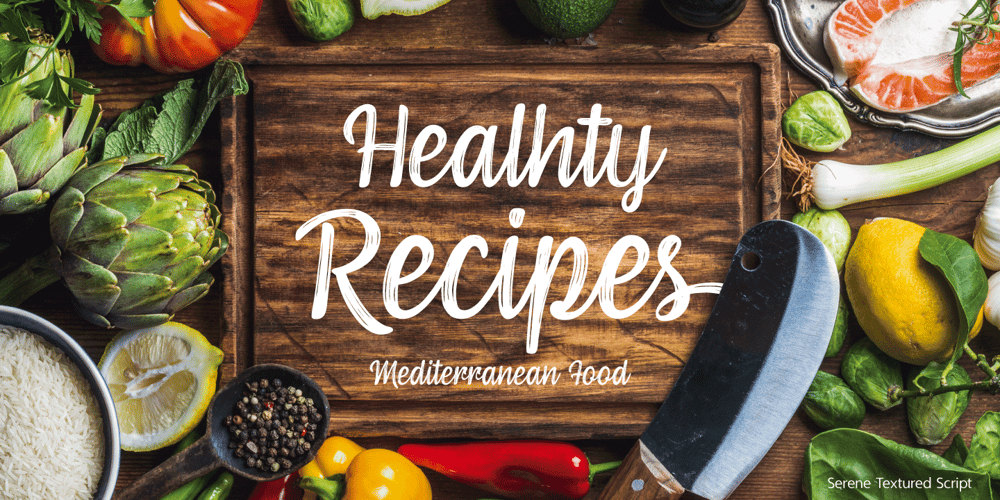
Serene Textured Font Family was designed by Pedro Teixeira and published by Pedro Teixeira. Serene Textured contains 1 styles and family package options. Serene Textured Script is informal, good for logos, headlines in magazines or titles in food recipes with a slight retro feel and textured that add value to your designs.